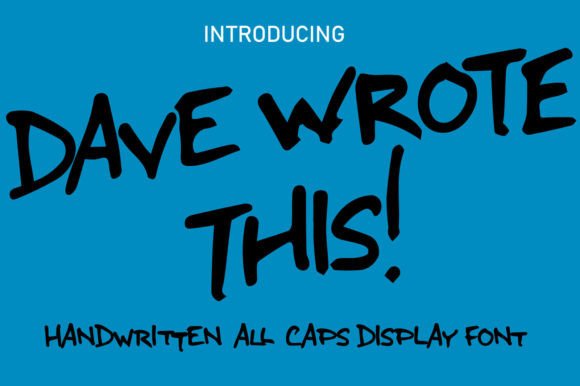
Unleash your creativity with Dave Wrote This Font, a captivating script typeface designed to transport you into the realm of artistic expression! Dive into a world of boundless imagination, where your words dance across the screen with a touch of playful elegance.
Step into the enchanting universe of Dave Wrote This, where each letter is a masterpiece, crafted with the utmost care and attention to detail. Inspired by the allure of Halloween, this font captures the spirit of festivity and magic, inviting you to weave your own tales of wonder and intrigue.
With two complete sets of all capital glyphs, Dave Wrote This offers unparalleled versatility, allowing you to unleash your creativity and craft truly unique designs. Whether you're a seasoned graphic designer or just starting your artistic journey, this font is your perfect companion, guiding you effortlessly toward breathtaking results.
Embrace the allure of Dave Wrote This and let your imagination run wild! Create eye-catching Halloween posters that ooze with personality, design invitations that spark curiosity and excitement, or craft social media posts that capture the essence of the season. The possibilities are endless, waiting for you to explore and make your mark on the world.